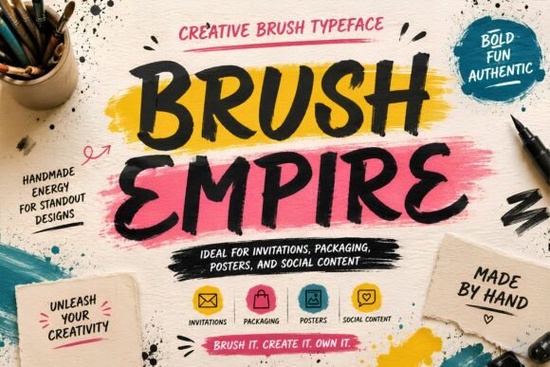
When you need typography that demands attention without looking like a standard corporate template, hand-painted display letters are the way to go. The Brush Empire Font is a bold, handmade typeface built exactly for this purpose. It features expressive strokes and organic curves that give designs an authentic, energetic feel. Whether you are a print-on-demand seller creating t-shirt graphics, a small business owner designing packaging, or a hobbyist making social media quotes, this display style provides a strong visual personality. You can explore more applications of this specific style in our handmade brush typeface directory.
What makes a handmade display style stand out?
The primary advantage of using a textured typeface is the human element it brings to digital graphics. Standard sans-serif fonts can sometimes feel rigid or overly formal for creative brands. By introducing slight imperfections and organic variations in the strokes, your artwork immediately feels more approachable and authentic. The heavy weight of the letters ensures they hold their shape, which is crucial for large formats like event posters and album covers. If your current projects feel a bit too stiff, the Izzie Font offers a quirky display alternative, an aesthetic we also cover in our broader display typeface category.
Where should you use bold brush typography?
Thick, expressive lettering works best in short bursts where it can act as the main focal point of your layout. Consider using it for merchandise like canvas tote bags, coffee mugs, and apparel, where the design needs to be read clearly from a distance. It is also highly effective for artisanal product packaging, craft beer labels, and energetic social media campaigns that need to stop the scroll. If you need something slightly more rugged for an outdoor-themed campaign, the Howdy Brother Font handles western apparel beautifully, similar to the styles featured in this rugged lettering collection.
How do you maintain readability with highly textured letters?
Because hand-painted fonts carry a lot of visual weight and character, pairing them correctly is essential to avoid a cluttered design. Always use them for headlines, logos, or single-word statements. For your body text, select a clean, simple sans-serif or geometric typeface. This contrast prevents the design from becoming overwhelming and ensures your core message is easily digestible. You may also need to adjust the letter spacing manually to give the characters room to breathe. For projects requiring a futuristic look instead of a handcrafted feel, the Super Robocop Font provides a structured tech aesthetic compared to the options in this geometric typeface guide.
Is this typeface suitable for commercial print-on-demand?
Yes, thick brush lettering is highly reliable for physical products and merchandise. The heavy weight means the edges of the letters will not easily fade, break, or blur when printed on fabric using direct-to-garment methods or traditional screen printing. It provides excellent ink coverage on both cotton and blended materials. When building a cohesive product line, mixing different typographic styles can add professional depth to your brand. For example, pairing your main bold title with the Snobit Font creates a striking visual hierarchy, an approach we detail further in our elegant serif review.
Quick checklist for your next typography project
- Keep it brief: Limit your brush text to three or four words maximum per design to maintain maximum visual impact.
- Check the contrast: Place dark, heavy letters on light backgrounds, or vice versa, to ensure the hand-painted edges remain crisp and legible.
- Pair with simplicity: Use a neutral, plain typeface for any secondary information like dates, prices, or website URLs.
- Test the print size: Always print a small physical mockup on paper before sending your final file to a production facility to verify the texture translates well.